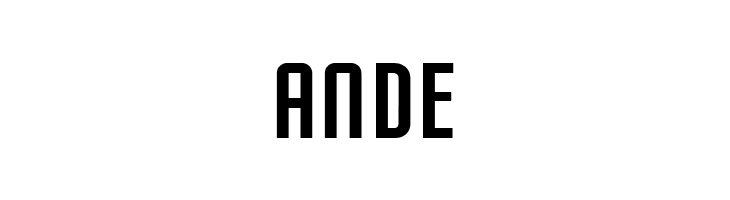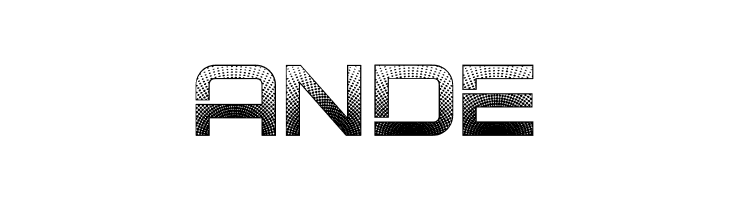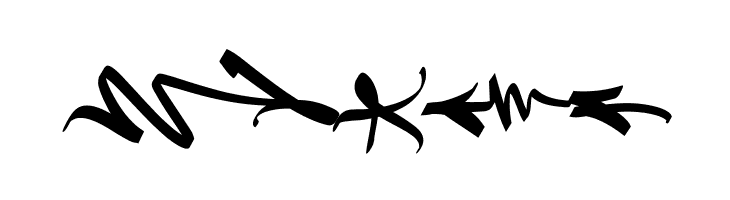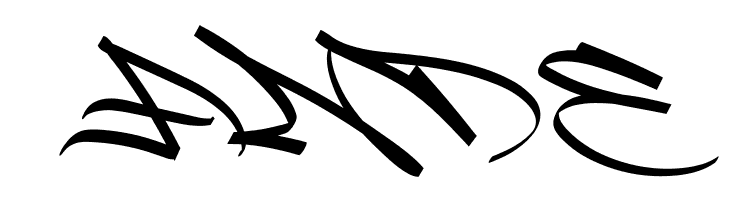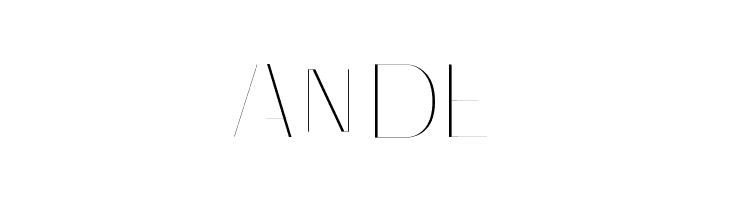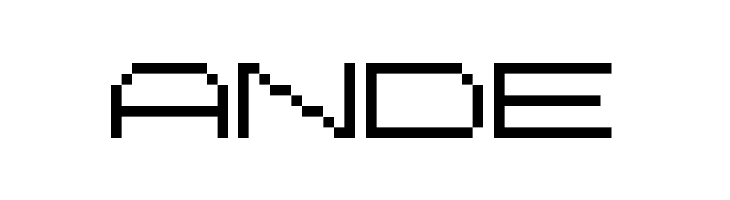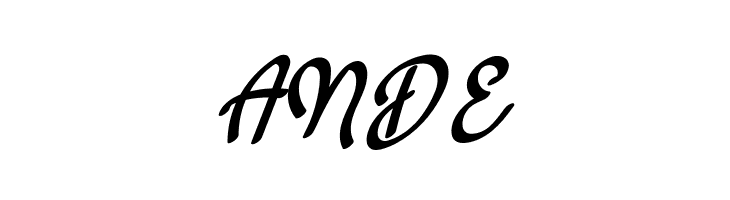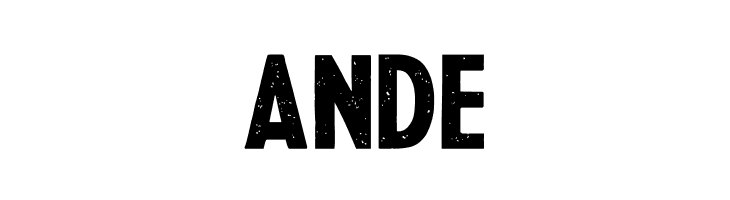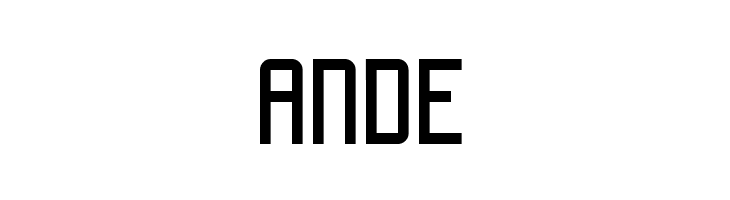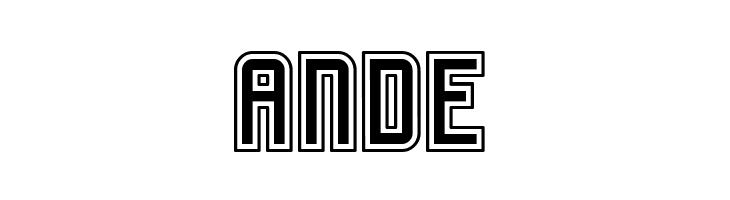
A bold, modern font with slanted characters and rounded edges.
A bold, cursive script font with elegant, flowing letterforms.
A geometric, modern font with clean lines and a technical appearance.
A bold, geometric font with a double-line outline for a modern, futuristic look.
A bold, geometric outline font with a modern, three-dimensional appearance.
A pixelated, grid-based font with a modern digital aesthetic.
A modern, slanted font with elongated characters and consistent stroke width.
A bold, geometric font with a halftone pattern, perfect for modern and industrial designs.
A bold, distressed font with an eroded, vintage texture.
A bold, slightly hollow font with angular, geometric characters.
A bold, jagged font with an edgy, rebellious style.
A modern, slim font with clean lines and geometric shapes.
A sleek, ultra-thin font with a modern, geometric design.
A slim, handwritten font with a casual and modern style.
A bold, geometric font with a modern and streamlined design.
A casual, handwritten font with a playful and informal style.
A bold, distressed font with a grunge aesthetic and irregular edges.
A sleek, minimalist font with thin, elongated letterforms.
A sleek, geometric font with a modern and elegant style.
A geometric, angular font with a modern and futuristic style.
A pixelated, retro-style font with a blocky, geometric design.
Bold, graffiti-inspired font with dynamic and expressive characters.
An abstract, graffiti-inspired decorative font with bold, swirling forms.
A bold, graffiti-inspired font with sharp angles and sweeping lines.
A sleek, ultra-thin font with a modern and elegant design.